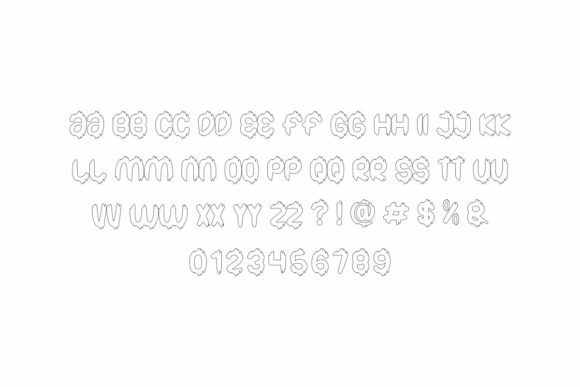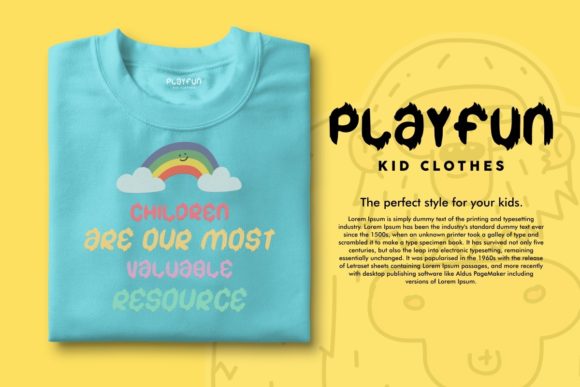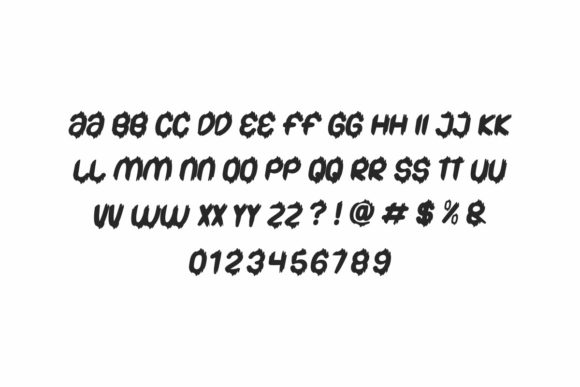
Introducing Bigfoot Cute Font: The Ultimate Display Font for Fun and Creative Projects
Are you tired of using the same old fonts for your design projects? Look no further! Bigfoot Cute Comic Font is here to add a touch of fun and whimsy to your creations. This adorable display font features hairy letters that are sure to capture the attention of your audience. In this article, we’ll dive into the world of Bigfoot Cute Font and explore its endless possibilities for designers, crafters, and anyone looking to add some personality to their projects.
What is Bigfoot Cute Font?
Bigfoot Cute Comic Font is a fun and playful display font that’s perfect for making a statement. Its unique hairy letters are inspired by the legendary Bigfoot, also known as Sasquatch, and are sure to bring a smile to anyone’s face. This cute cartoon font is designed to be used for a variety of projects, including branding, logos, stationery, business cards, signage, flyers, brochures, and more.
Bigfoot Cute Font is a versatile font that can be used in countless ways. Here are just a few ideas to get you started:
- Kids’ t-shirts and apparel: Imagine a fun and playful design featuring Bigfoot Cute Font on a kids’ t-shirt. Perfect for a casual, everyday look or as a gift for the little ones.
- Mugs and ceramics: Add a touch of personality to your morning coffee routine with a Bigfoot Cute Font design on your mug.
- Wall art and posters: Create a fun and quirky piece of wall art featuring Bigfoot Cute Font and a favorite quote or phrase.
- Children’s books and educational materials: Bigfoot Cute Font is perfect for kids’ books, activity sheets, and educational materials.
- Food packaging and labels: Add a playful touch to your food packaging or labels with Bigfoot Cute Font.
Why Choose Bigfoot Cute Font?
So, what sets Bigfoot Cute Font apart from other fonts? Here are just a few reasons why designers and crafters love this font:
- Unique and playful design: Bigfoot Cute Font is unlike any other font out there. Its hairy letters are sure to stand out and add a touch of personality to your projects.
- Easy to read and use: Despite its playful design, Bigfoot Cute Font is easy to read and use, making it perfect for a variety of projects.
- Versatile and adaptable: Bigfoot Cute Font can be used for both digital and print projects, and can be adapted to fit a variety of styles and themes.
Tips for Using Bigfoot Cute Font
Here are a few tips for getting the most out of Bigfoot Cute Font:
- Use it sparingly: Bigfoot Cute Font is a bold and playful font, so use it sparingly to make a statement.
- Pair it with complementary fonts: Pair Bigfoot Cute Font with complementary fonts to create a unique and visually appealing design.
- Experiment with colors and textures: Don’t be afraid to experiment with different colors and textures to add depth and interest to your design.